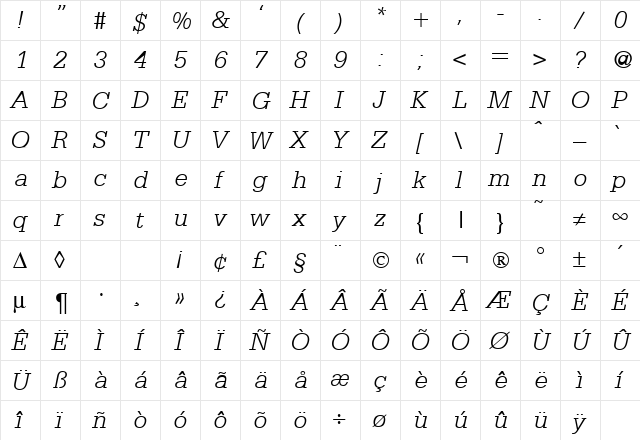
SergeantLight RegularItalic
Design Context for SergeantLight Typeface
SergeantLight offers clean, dependable letterforms without strong stylistic allegiance, making it a practical choice for designers who need flexibility. The slanted form adds forward momentum and visual energy. The delicate stroke weight brings airiness and refinement to layouts.
Pro Tip: Try SergeantLight for annotation and caption copy alongside an upright companion — the contrast in angle creates a dynamic but ordered typographic system.